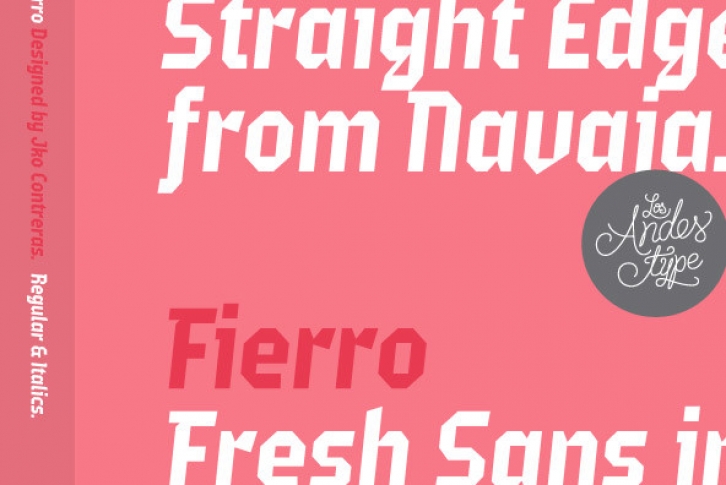
Fierro is a heavy-geometric-retrofuturistic typographic construction that, without any curve, still retains good legibility. These shapes are based on great bended metal pieces, which represent its name, meaning "hardware store". It has been designed to be used in large sizes and for designs with character that look to create a strong visual block. Designed by Jko Contreras.